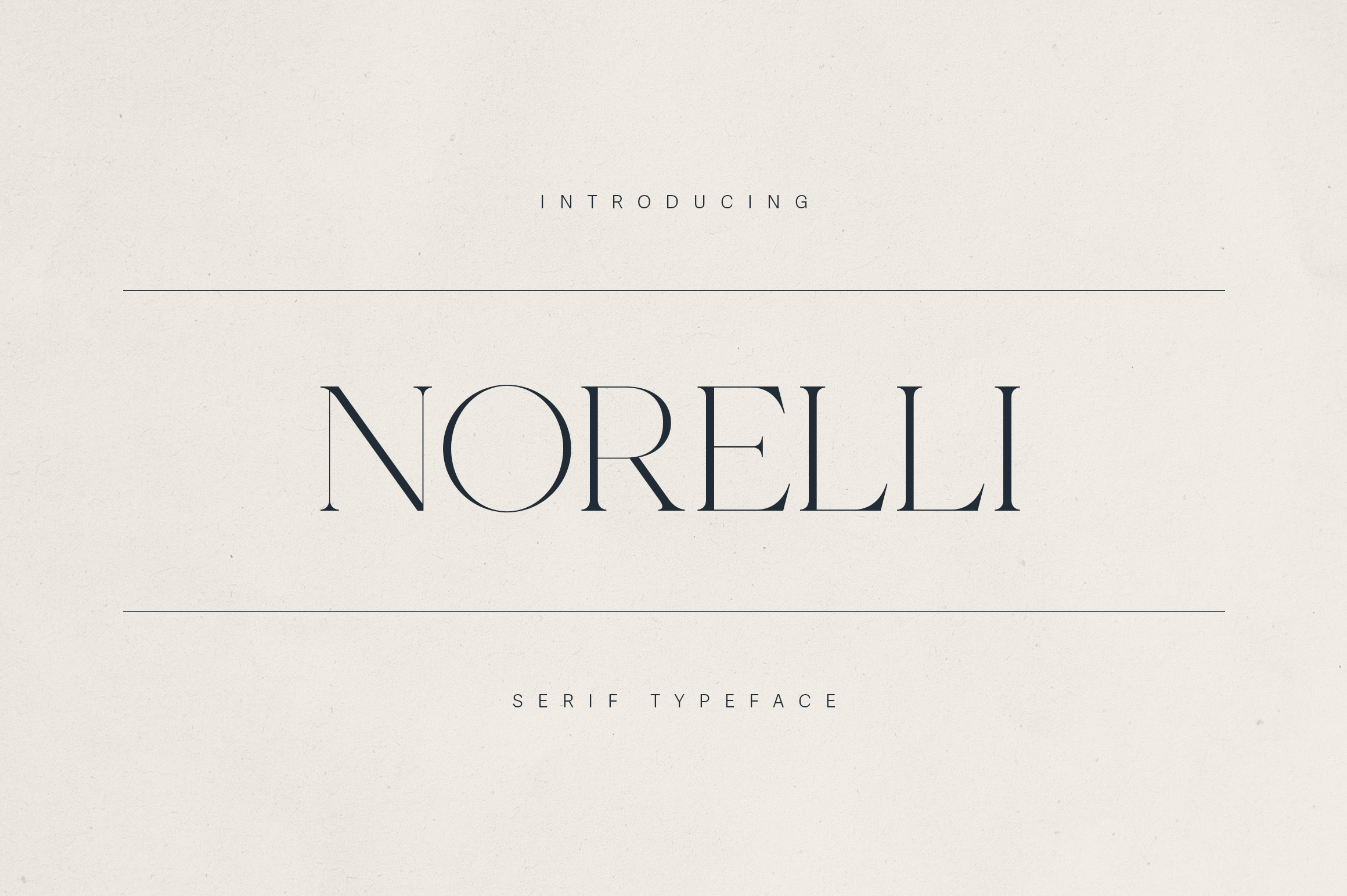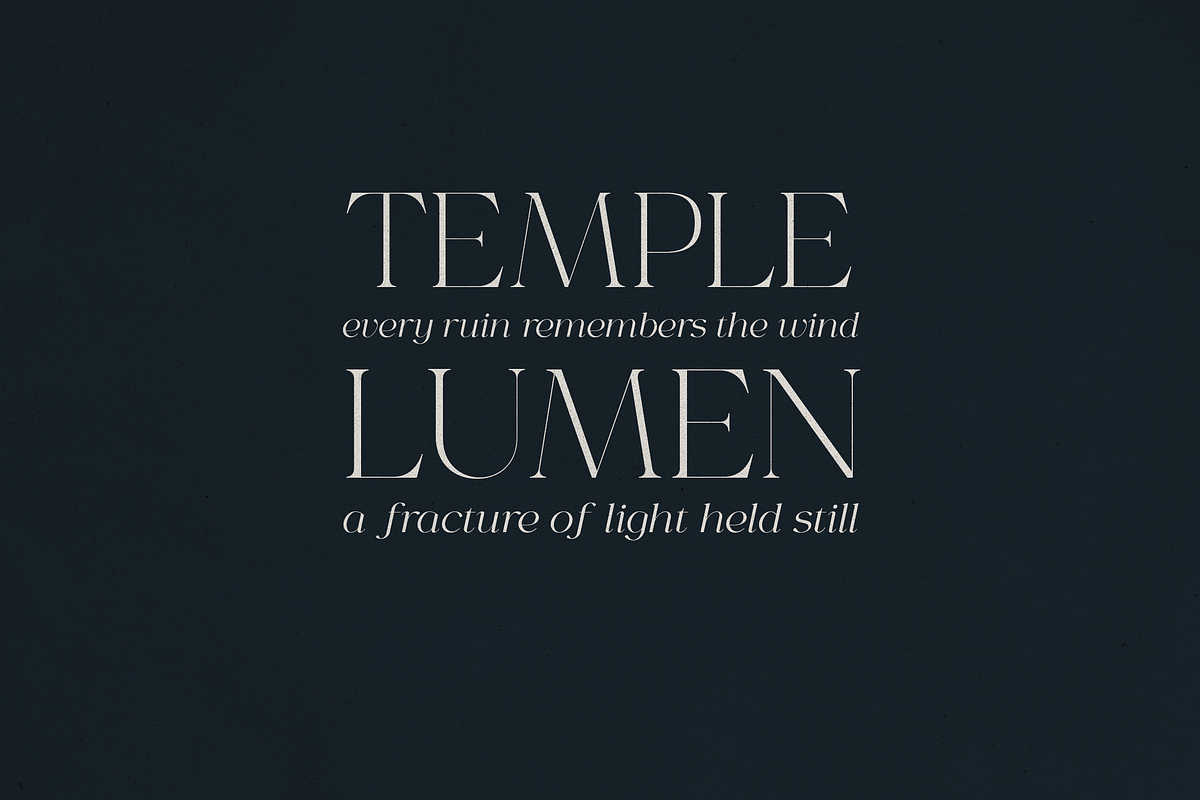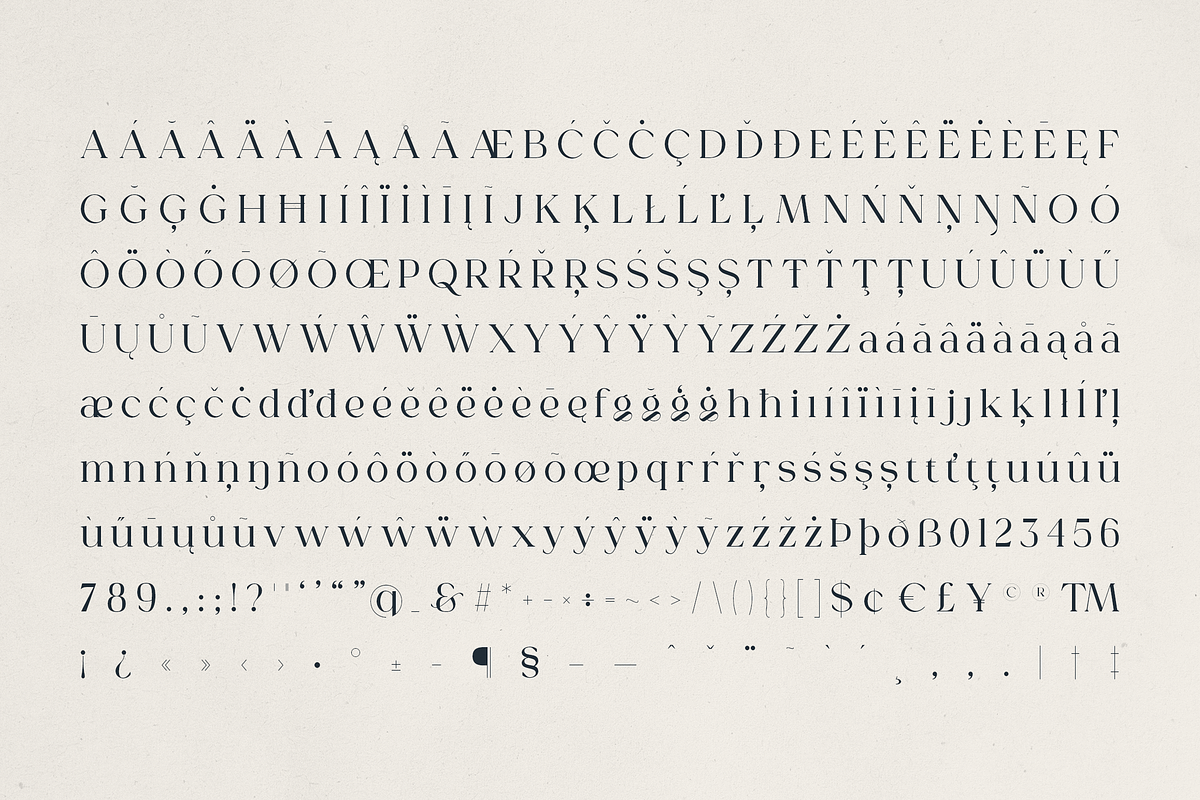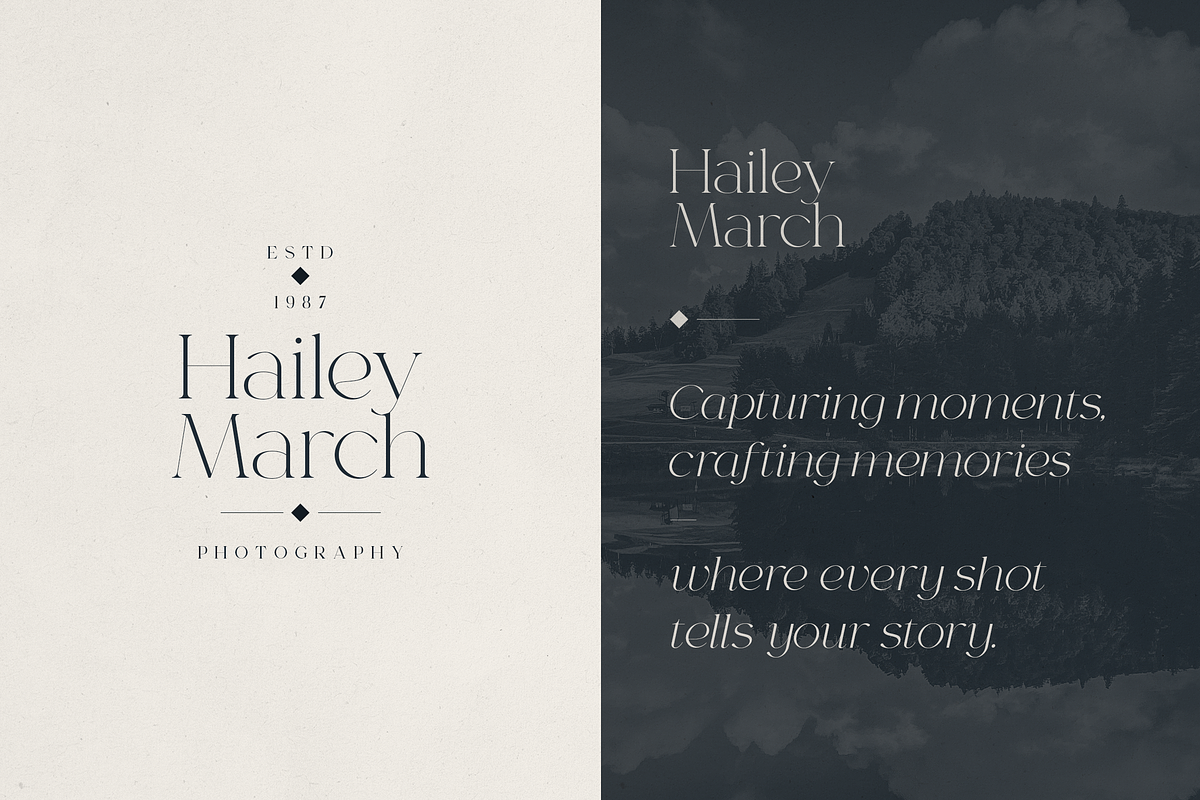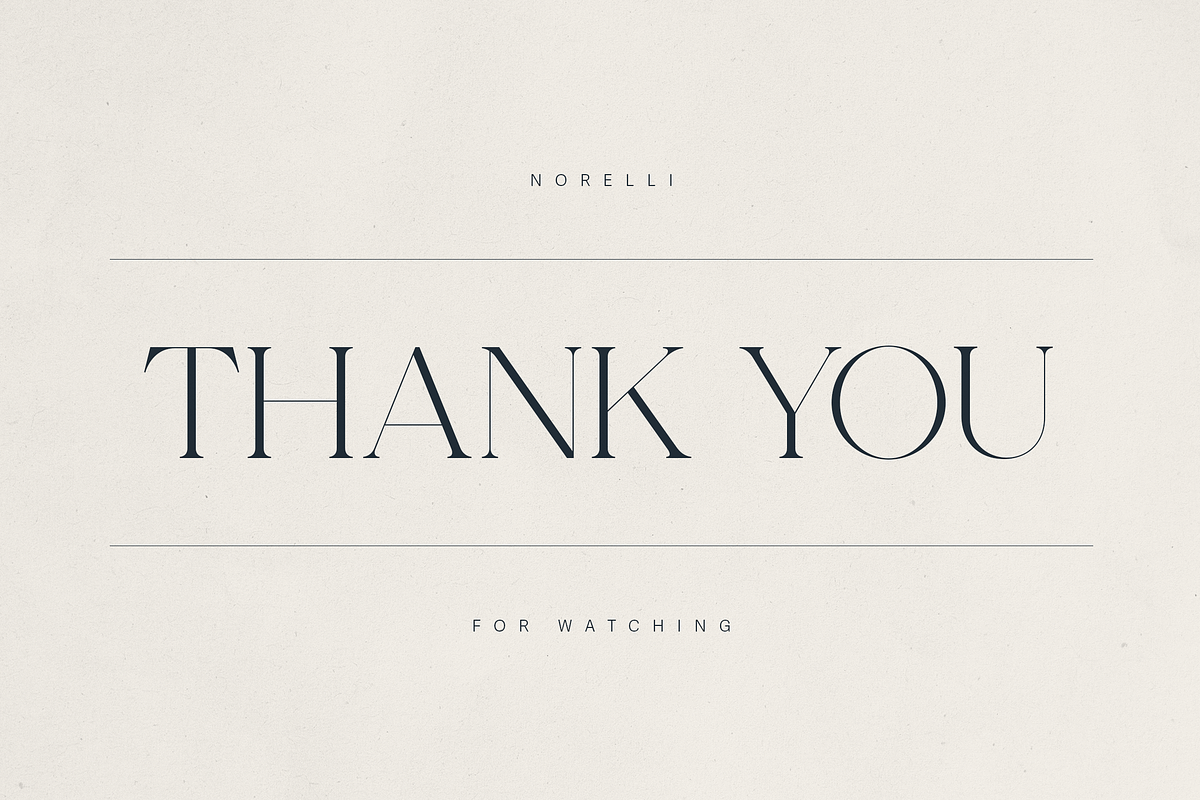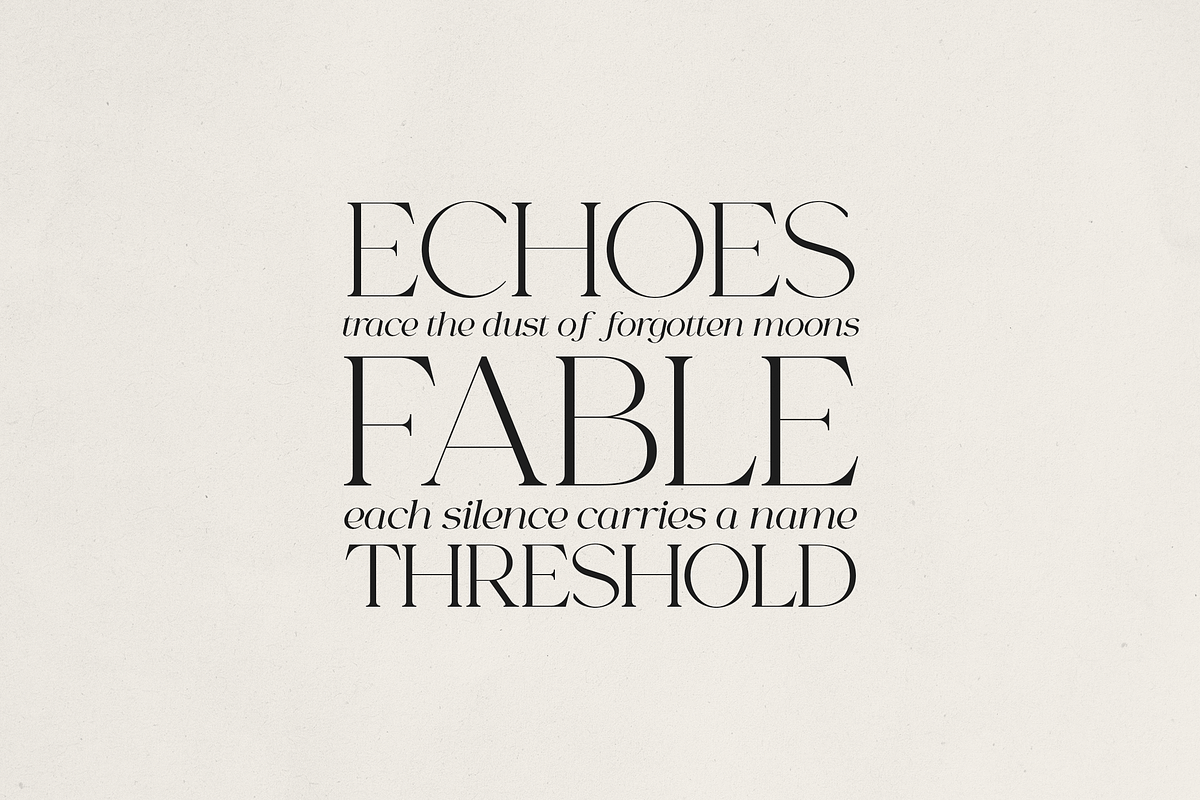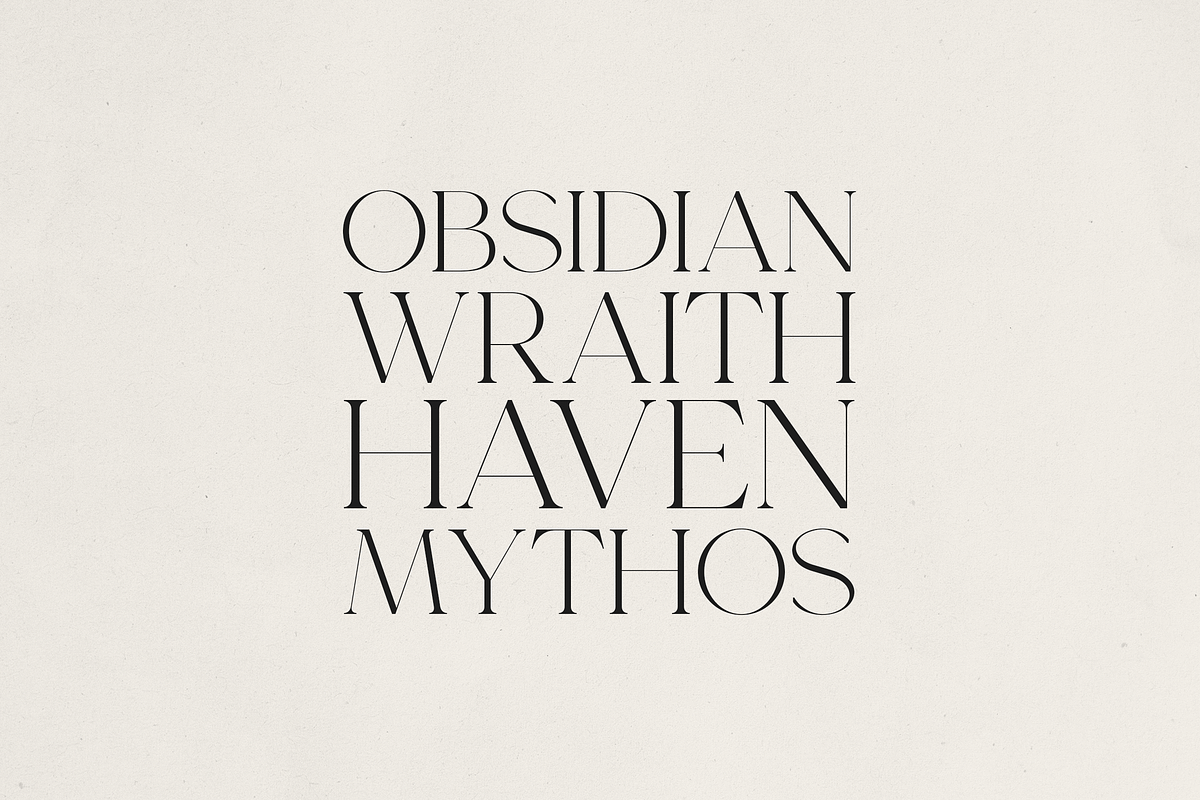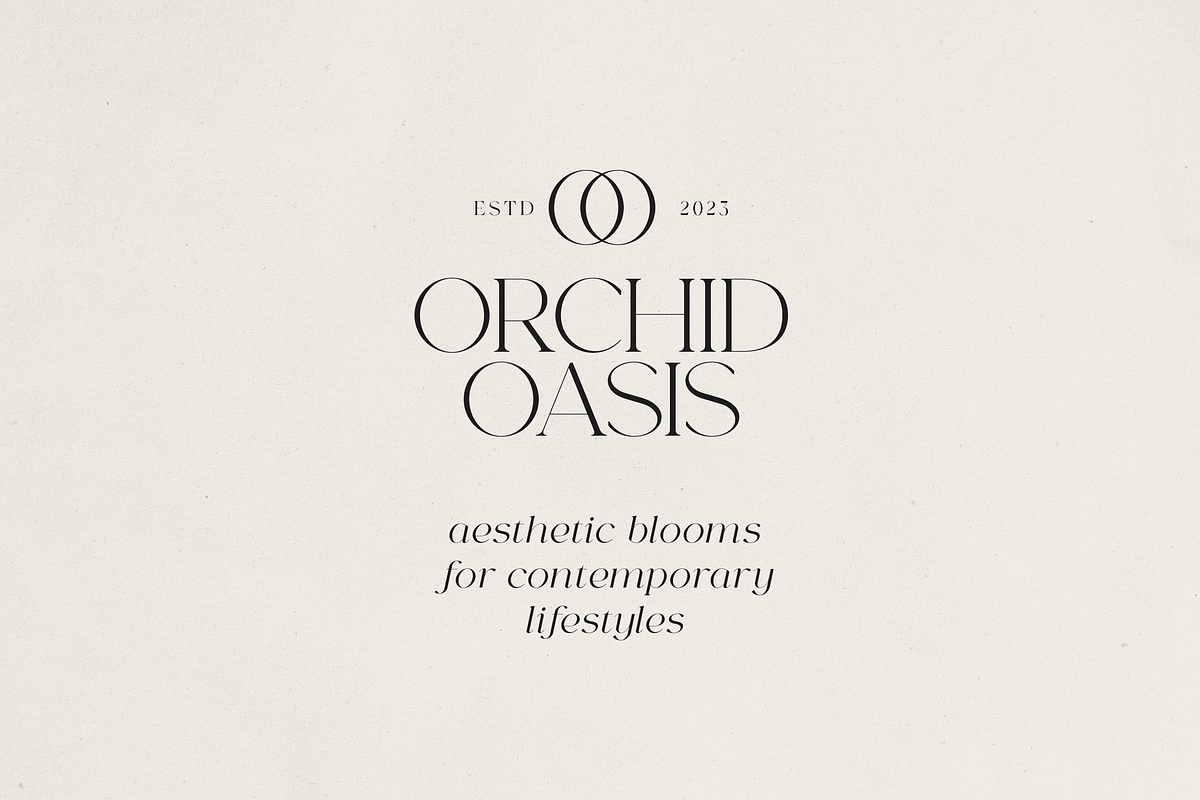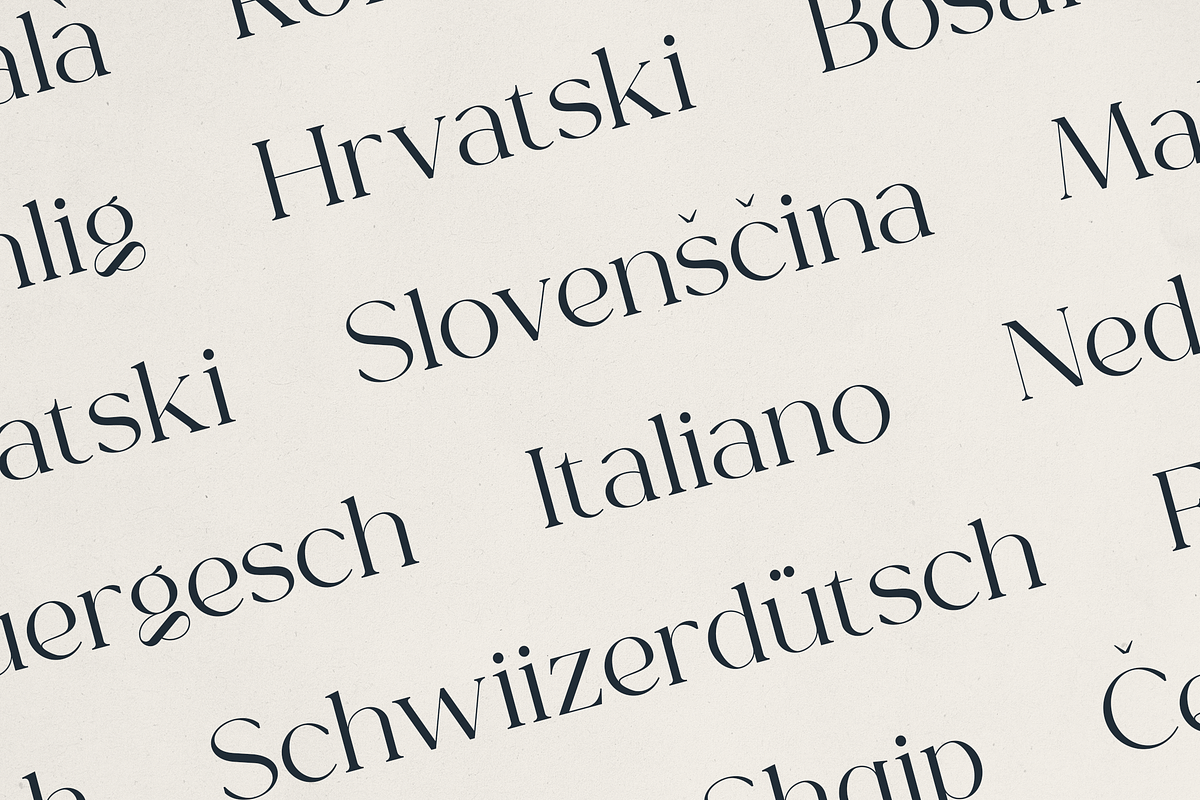
Norelli – A Modern Serif Typeface
Norelli – A Modern Serif Typeface for Timeless Elegance
Norelli is a refined serif typeface designed to elevate visual storytelling through sophistication and clarity. With its high-contrast strokes, graceful curves, and modern-classic balance, Norelli is perfect for luxury branding, editorial design, fashion photography logos, upscale packaging, and wedding stationery. Whether you're crafting a minimal brand identity or a romantic visual narrative, Norelli brings timeless charm to every letterform.
Optimized for print and digital use, Norelli supports multilingual characters. Let your typography speak with elegance and impact.
- Photography brands
- Interior design studios
- High-end fashion labels
- Boutique floral shops
- Premium editorial layouts